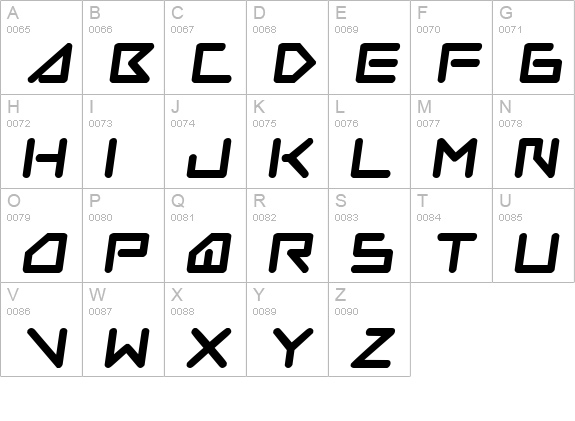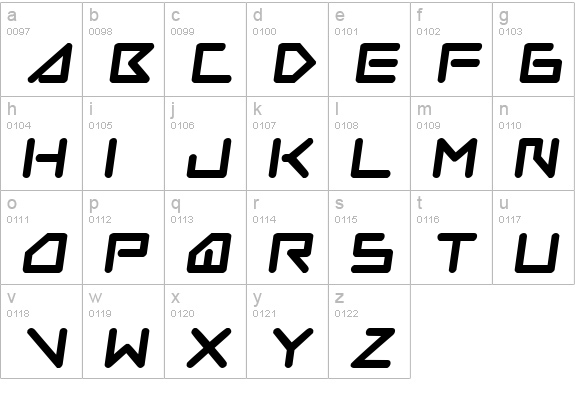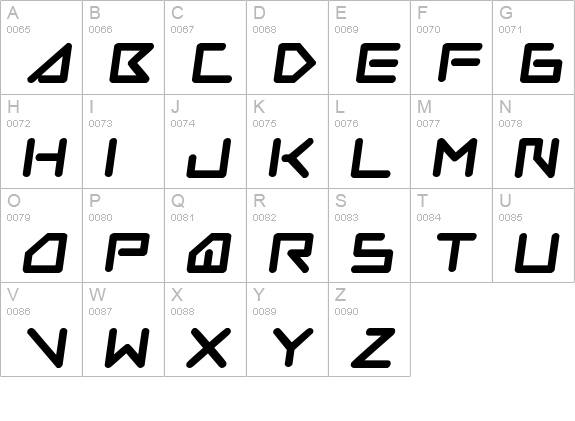
Insane Hours Font Details
Introducing Insane Hours, a captivating and dynamic font that will unleash your creativity like never before. With its edgy and unconventional design, this font is perfect for those seeking to make a bold statement in their projects. Insane Hours is a free font that combines contemporary aesthetics with a touch of urban grit, making it ideal for a wide range of design applications. Whether you're working on a logo, poster, or website, this font will instantly add a distinctive and eye-catching element to your designs. Featuring sharp angles, intricate details, and a unique character set, Insane Hours exudes a sense of energy and excitement. Its versatility allows it to be used in both minimalist and maximalist designs, adapting effortlessly to any creative vision you have in mind. But what sets Insane Hours apart is not just its striking appearance, but also its accessibility. This font is freely available to download at FontsMarket.com, a leading online resource for high-quality fonts. By offering Insane Hours for free, we aim to empower designers of all backgrounds and budgets to access top-notch typography without compromising on style or quality. So, whether you're a seasoned designer looking to push the boundaries of typography or a novice seeking to make a memorable impression, Insane Hours is the perfect font for you. Download it today at FontsMarket.com and embark on a journey of limitless creativity. It's time to embrace the madness and let Insane Hours redefine your design game.